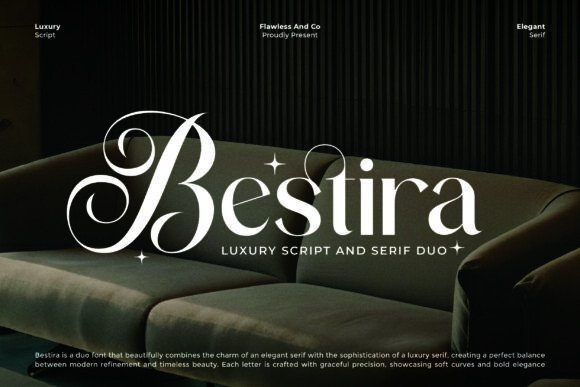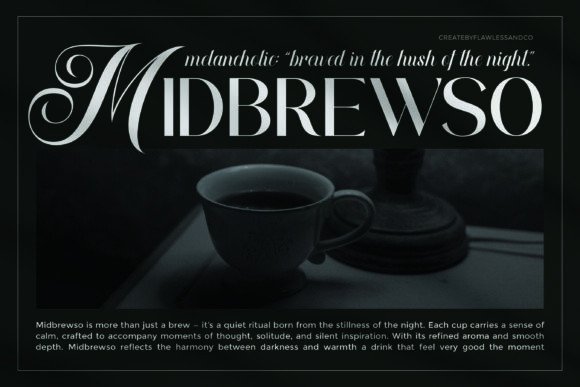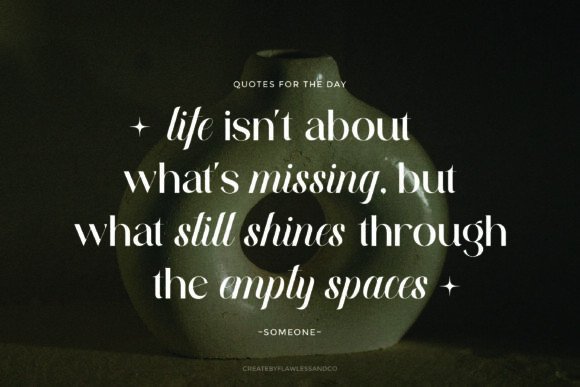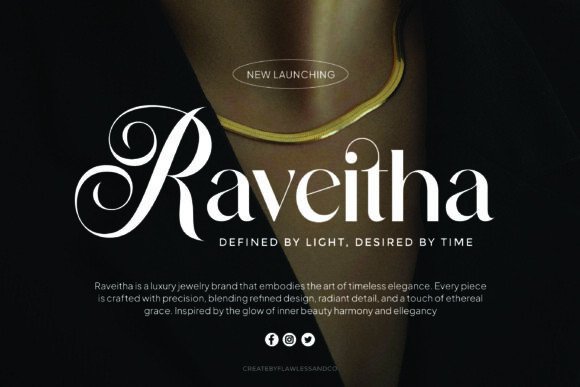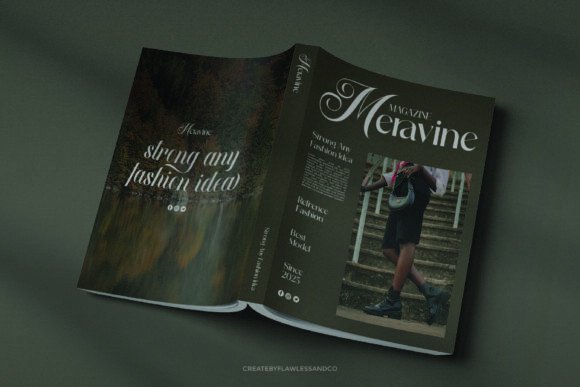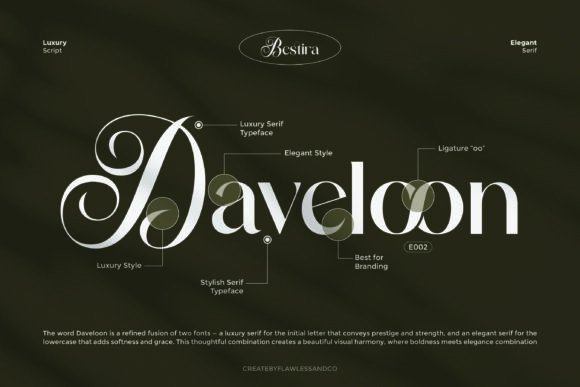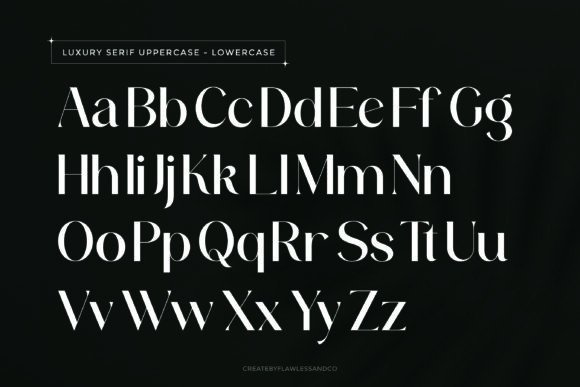
Unlock the Elegance of Bestira Duo Font
As designers, we’ve all experienced that moment of creative clarity – when the perfect font pops into our minds and sets the tone for an entire project. For me, it was while brainstorming ideas for a high-end fashion brand that I stumbled upon the Bestira Duo Font. Its harmonious blend of elegance and sophistication immediately caught my attention, and I knew I had to learn more.
Bestira Duo Font is a luxury typeface designed to evoke the charm of a bygone era while still feeling modern and refined. With its intricate details and high contrast, this font is the perfect choice for designers looking to add a touch of luxury to their work. Whether you’re creating a logo, branding materials, or marketing campaigns, Bestira Duo Font is a valuable addition to any designer’s toolkit.
Bestira Duo Font Key Features
- Font Family: Bestira Duo
- Unique Characteristics: Bestira Duo is a modern, elegant script font with a unique blend of calligraphy and handwriting styles
Review: Bestira Duo Font
The Bestira Duo Font is a beautiful and elegant script font that can add a touch of sophistication to any design project. ✨ The flowing lines and connections between the letters make it perfect for creating a sense of movement and fluidity.
- Perfect for: branding, invitations, wedding stationery, and any project where a touch of elegance is needed.
- Works well in: pairing with sans-serif fonts for contrast, or as a standalone font for a more dramatic look.
However, there are some limitations to consider: ⚠️ the font may be difficult to read at smaller font sizes, and it can be challenging to customize the font’s spacing and alignment. Additionally, the font’s connections between letters can make it tricky to pair with other fonts that have similar characteristics.
Overall, the Bestira Duo Font is a beautiful and elegant script font that can add a touch of sophistication to any design project. While it may have some limitations, it’s a great choice for designers who want to create a sense of movement and fluidity in their designs.
Tips for Getting the Most Out of Bestira Duo Font
Bestira Duo Font is ideal for creating elegant and sophisticated designs. To get the most out of it, try the following:
- Use it for titles and headings to add a touch of sophistication.
- Pair it with a clean and simple sans-serif font for body text.
Bestira Duo Font is commonly used for:
- Magazine and newspaper headlines.
Alternatives to Bestira Duo Font
Playfair Display is a luxurious, high-end serif font that is perfect for creating elegant and sophisticated designs. It features intricate details and flourishes, making it ideal for use in high-end branding, magazines, and advertising.
Compared to Bestira Duo Font, Playfair Display has a more formal and traditional feel, while Bestira Duo Font has a more modern and minimalist aesthetic. Playfair Display is also more ornate, with a greater emphasis on detail and decoration.
Great Vibes is a modern, elegant script font that is perfect for creating stylish and sophisticated designs. It features a flowing, handwritten feel, making it ideal for use in branding, advertising, and editorial design.
Compared to Bestira Duo Font, Great Vibes has a more fluid and expressive feel, while Bestira Duo Font has a more structured and geometric aesthetic. Great Vibes is also more versatile, working well in a wide range of contexts and applications.
Pacifico is a modern, elegant script font that is perfect for creating relaxed and sophisticated designs. It features a flowing, handwritten feel, making it ideal for use in branding, advertising, and editorial design.
Compared to Bestira Duo Font, Pacifico has a more laid-back and casual feel, while Bestira Duo Font has a more structured and geometric aesthetic. Pacifico is also more suitable for use in digital applications, such as social media and websites.